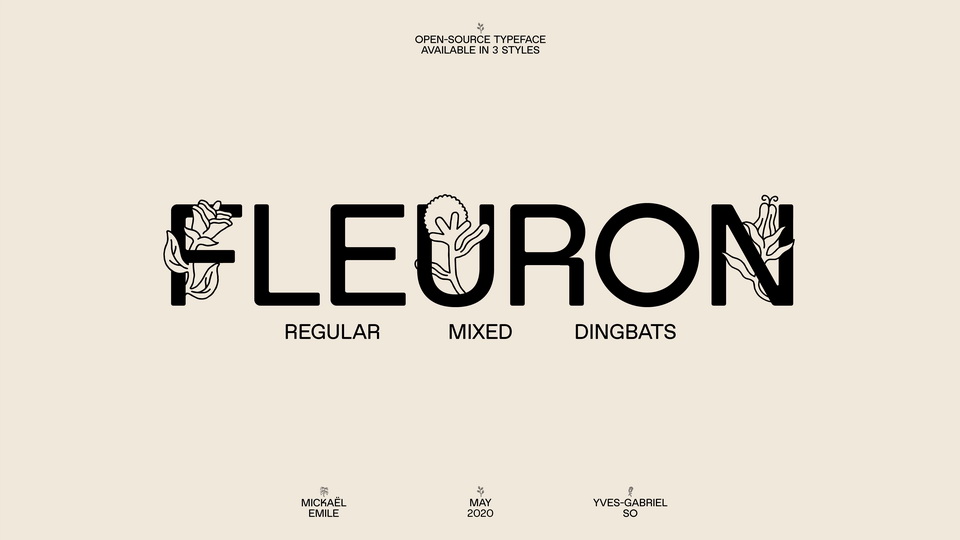
Download Fleuron typeface, a sans serif and illustrative font family in three styles about imaginary flowers. Fleuron is perfect for business and wedding cards, logos, branding and well to emphasize your unique style.
Designer: Mickaël Emile